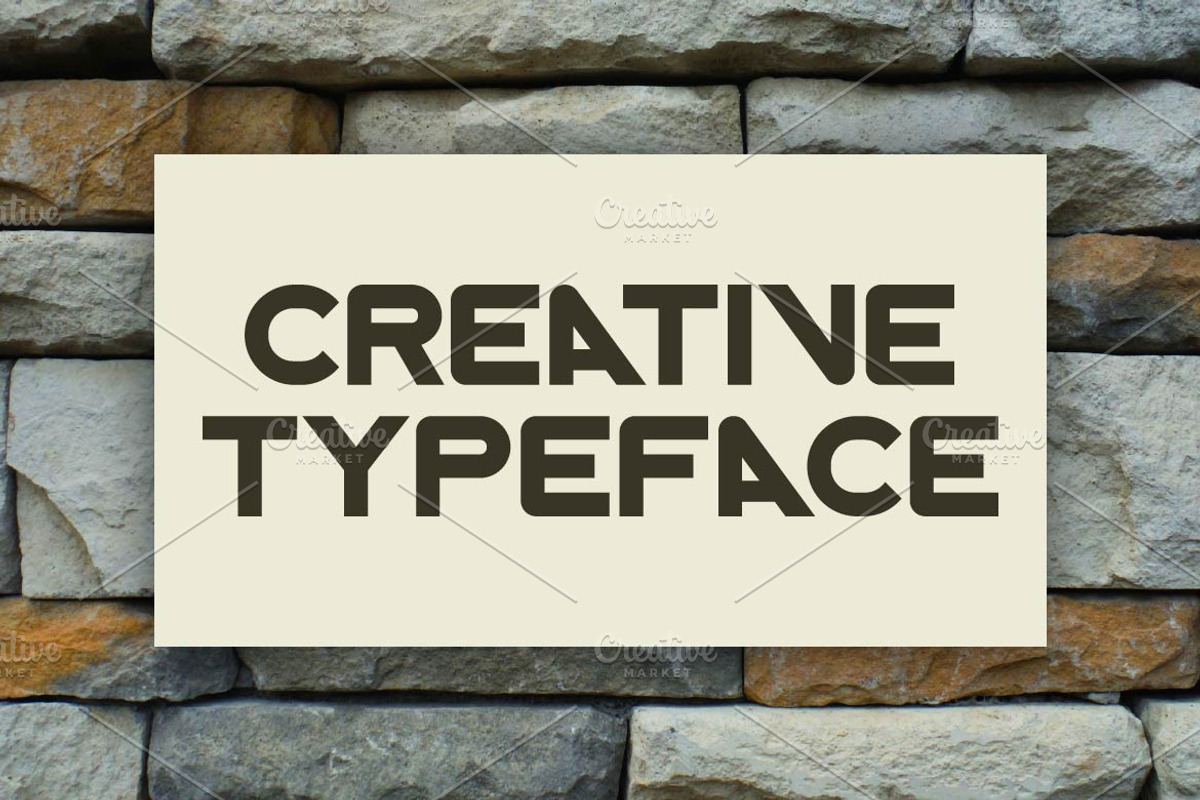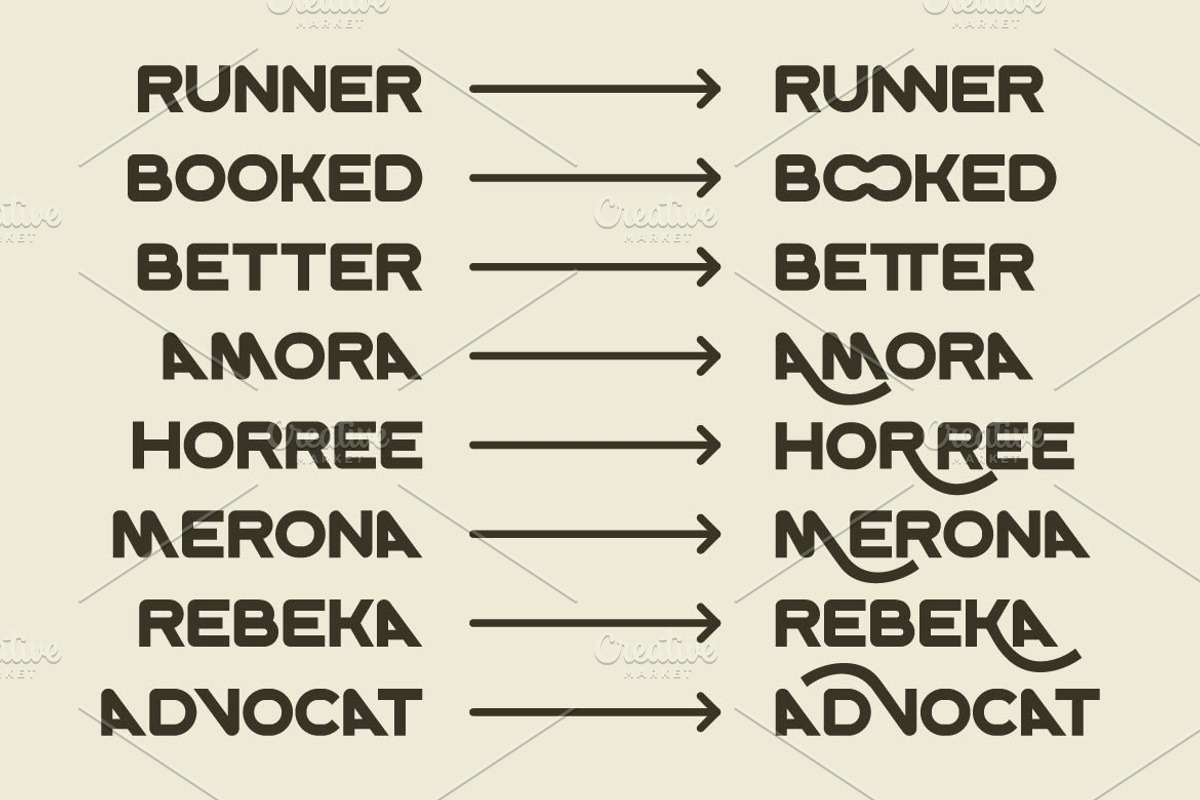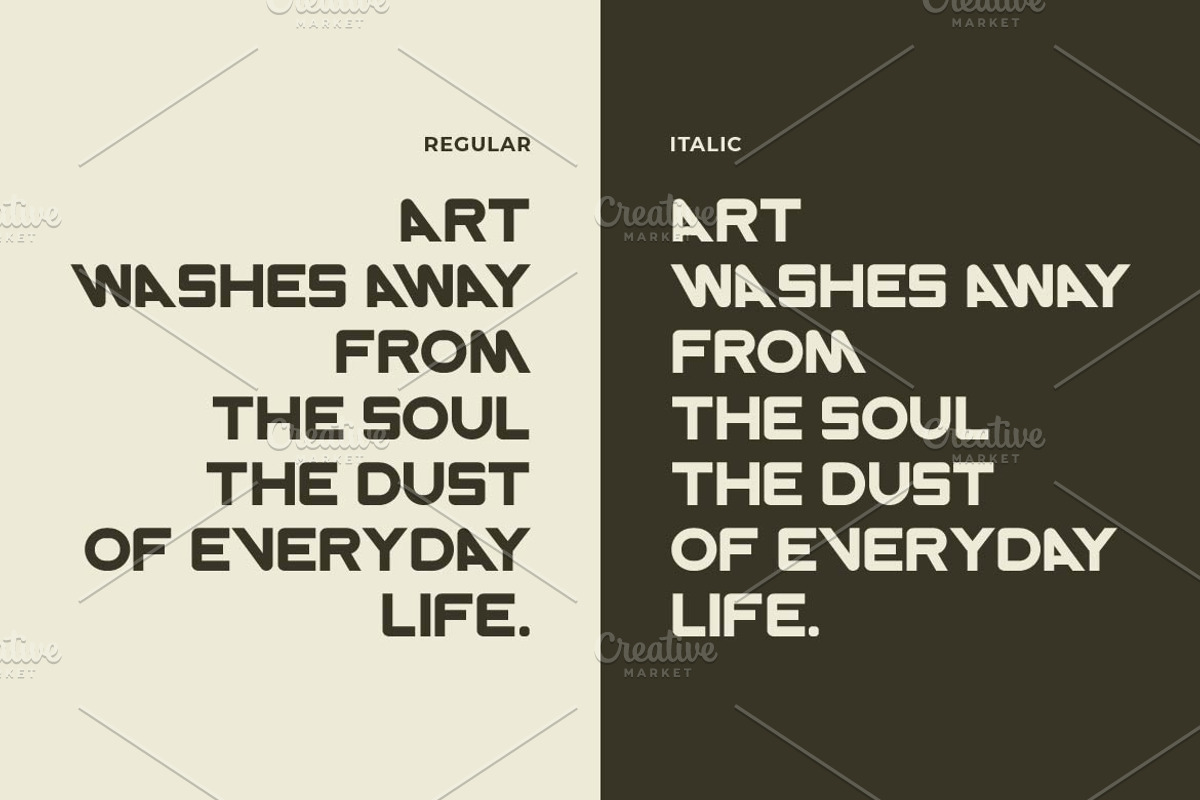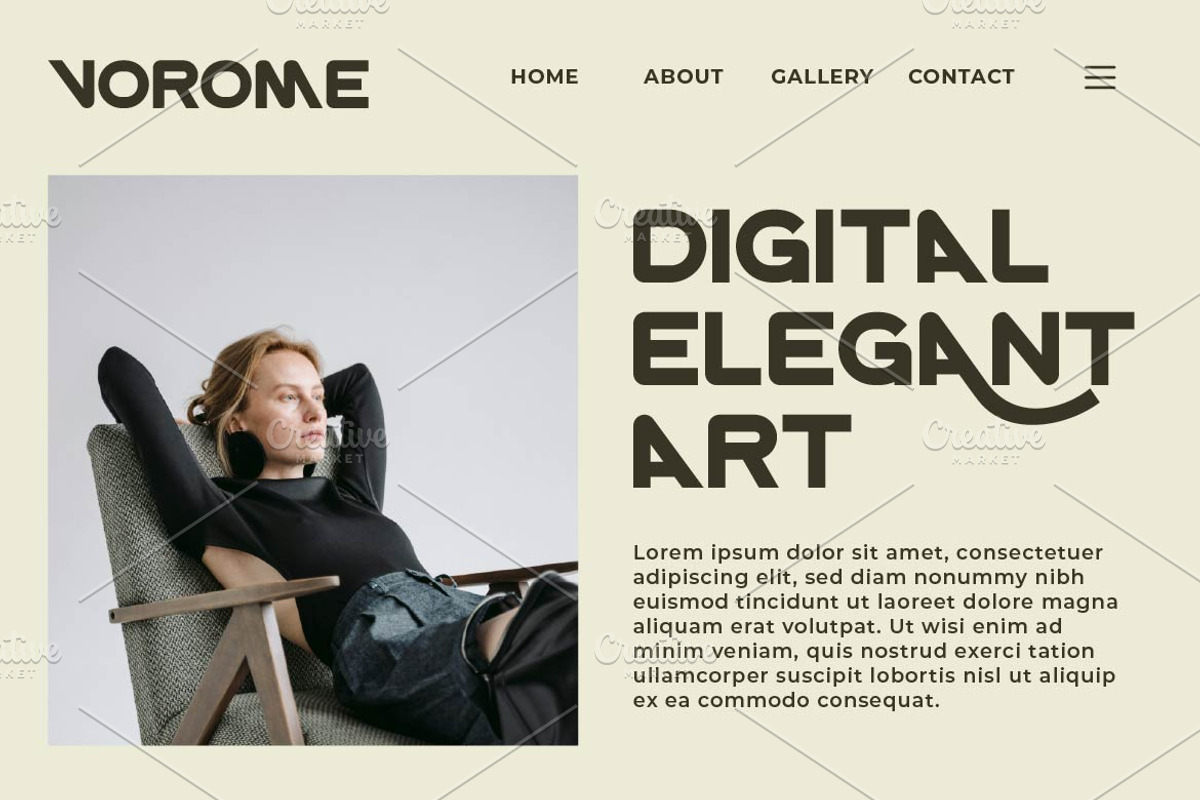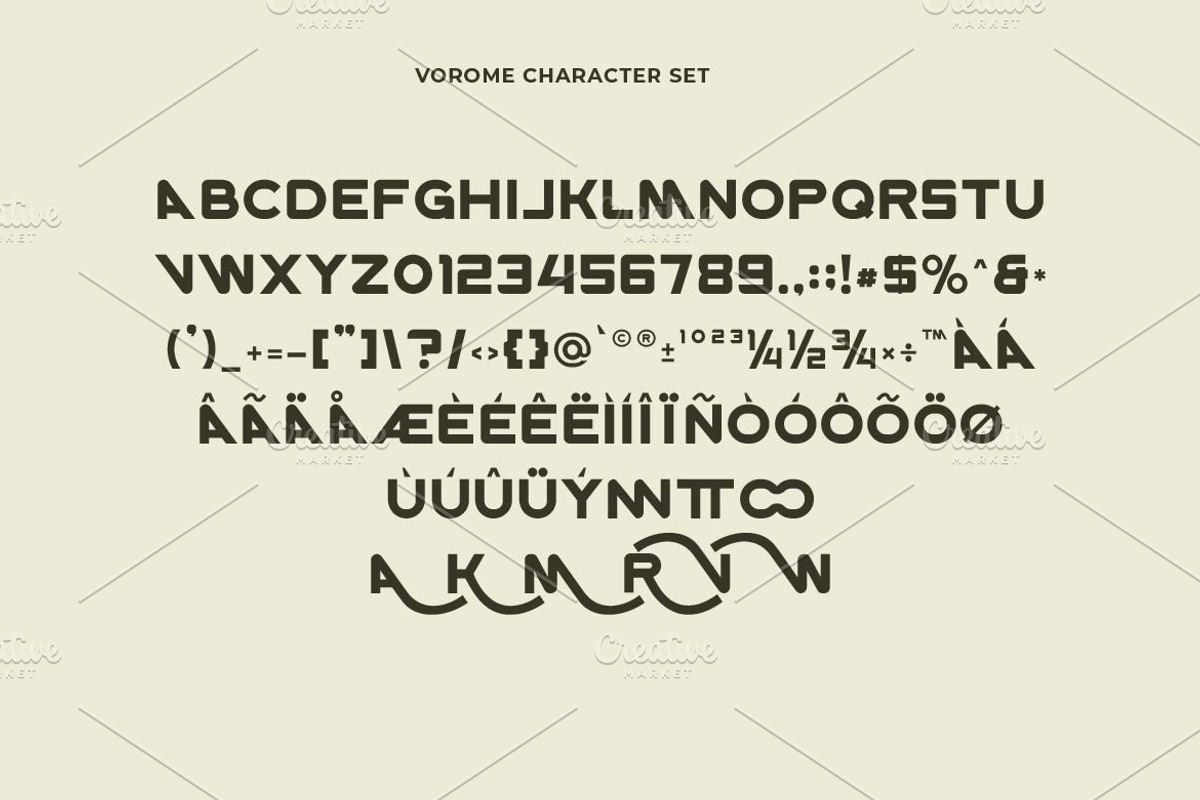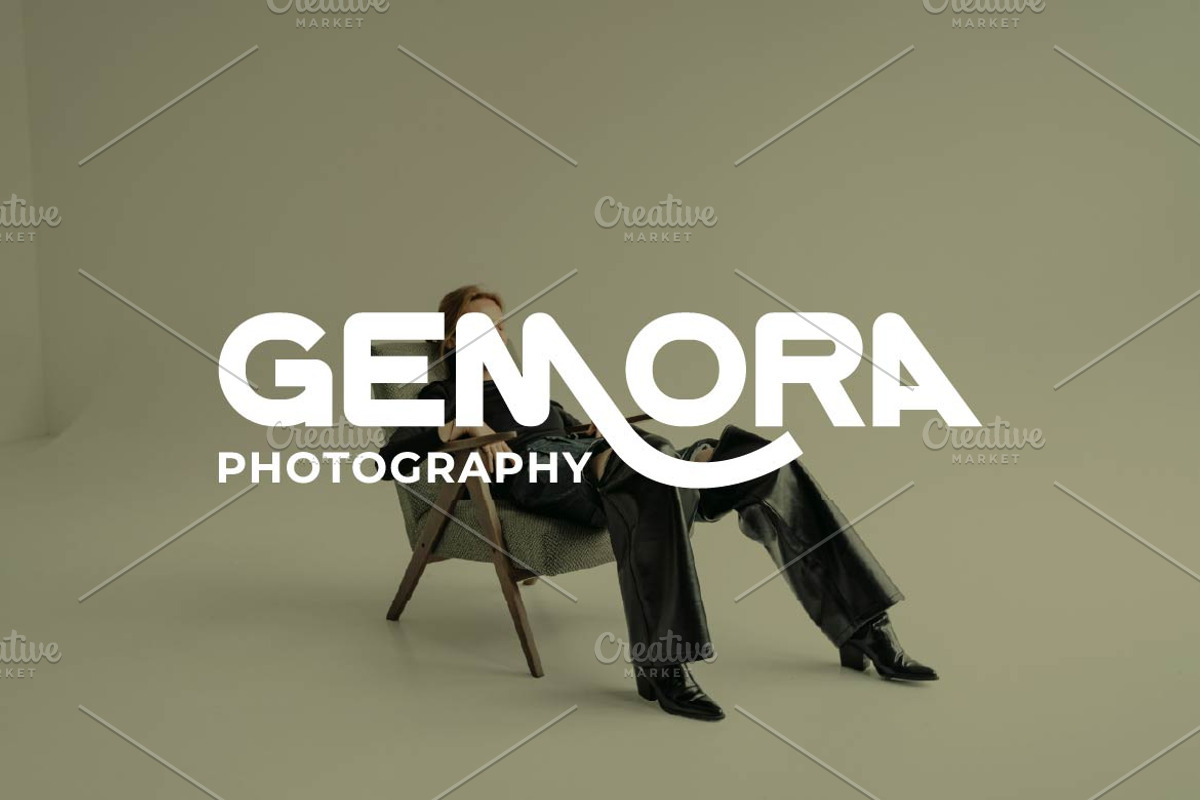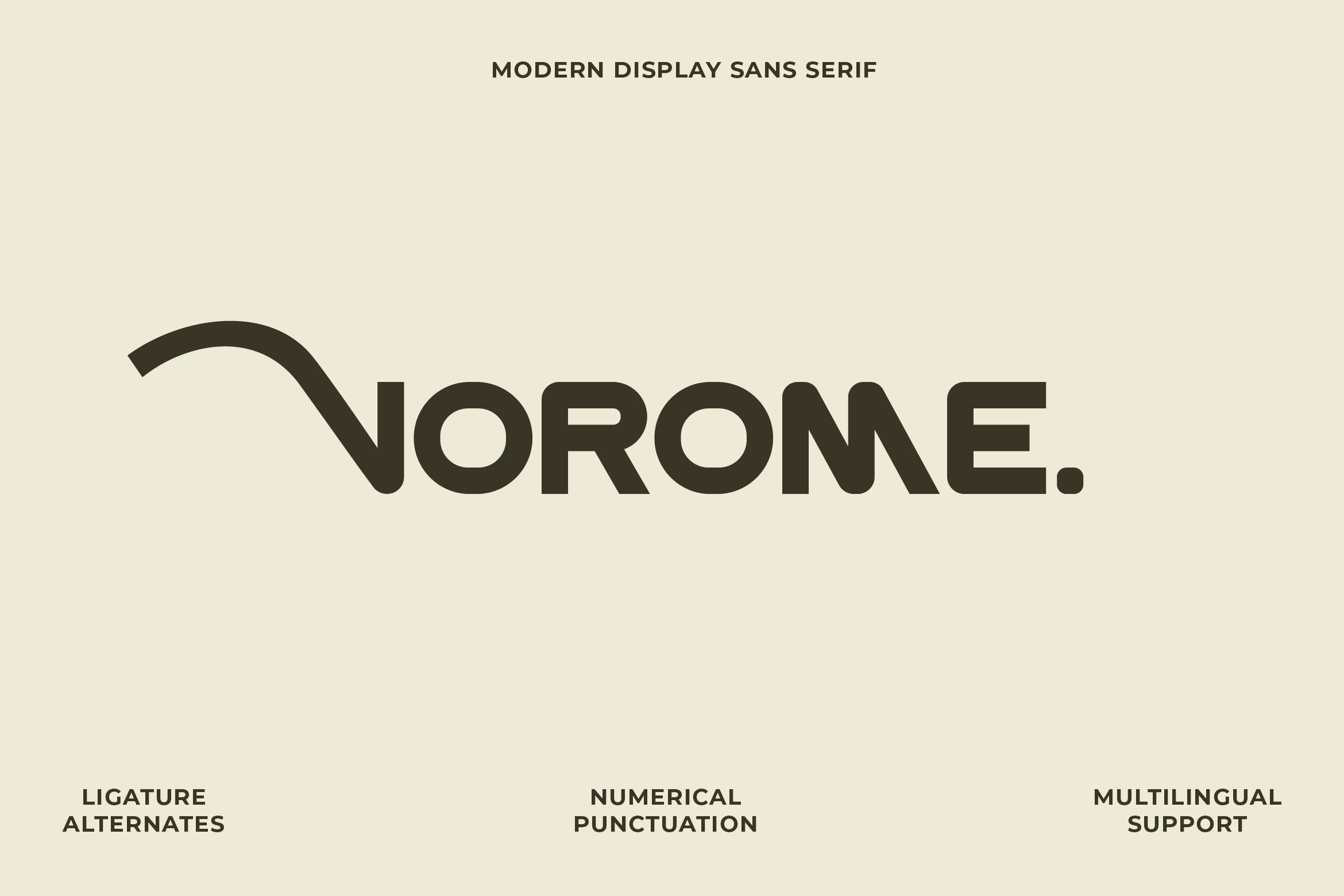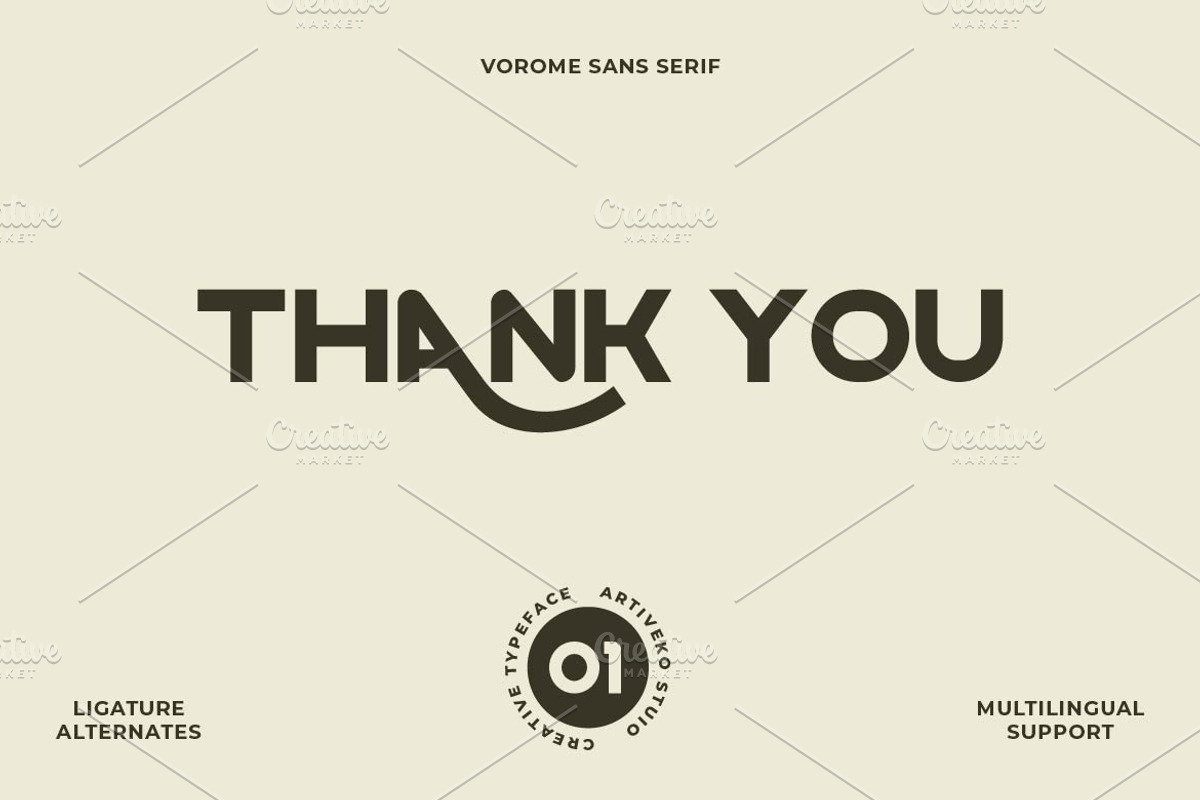
Vorome Logo Sans Font
Vorome is a strong and unique sans serif font with bold character and striking forms. Built for impactful branding, posters, headlines, and logos, it stands out with sharp angles and confident geometry. Complete with multilingual support, ligatures, and alternates, Vorome delivers a fearless presence in any modern design.